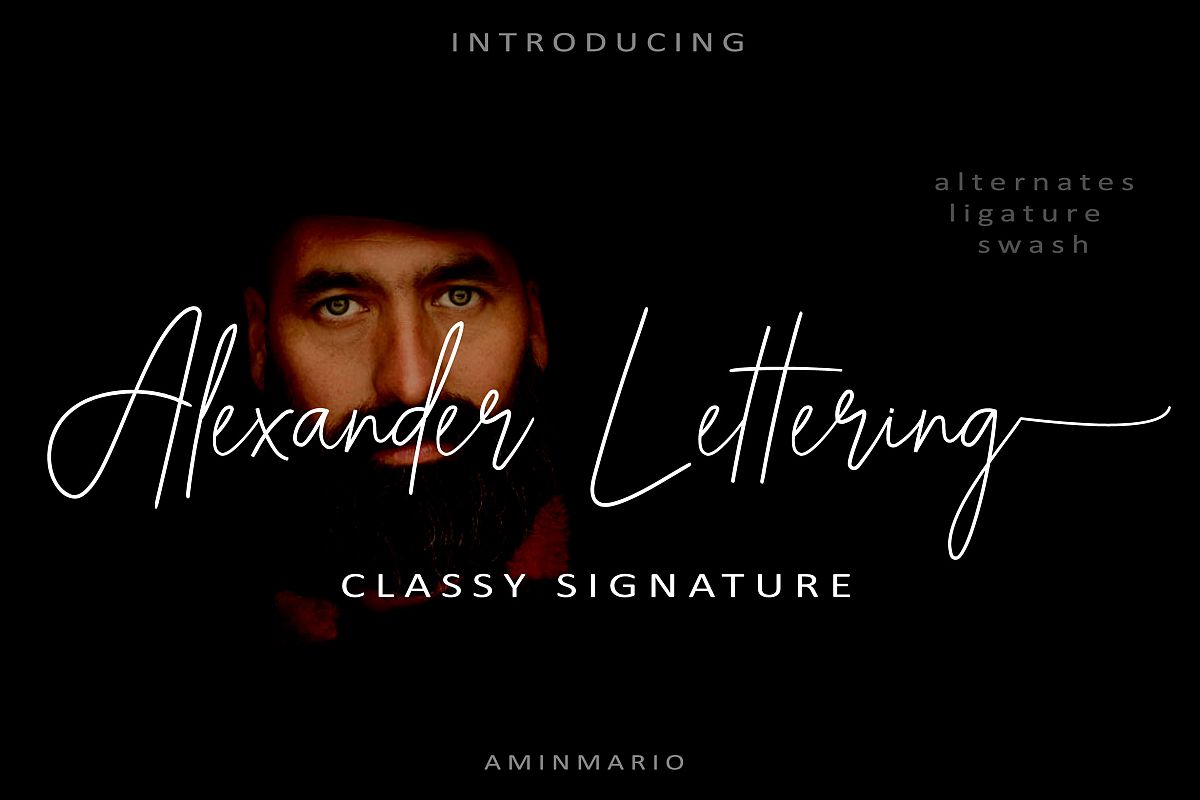
ALEXANDER LETTERING
Alexander Lettering
Alexander Lettering Italic
We introduce our new product called ALEXANDER LETTERING.
Alexander Lettering is a new classy script with a dancing baseline stylish handwritten , classic script style make this font looks natural, classy and perfect for any awesome project that need hand writing taste.
As usual ,the font comes with many opentype features such as Alternates,Ligature,Title and Ending Swash, and also support multilingual.